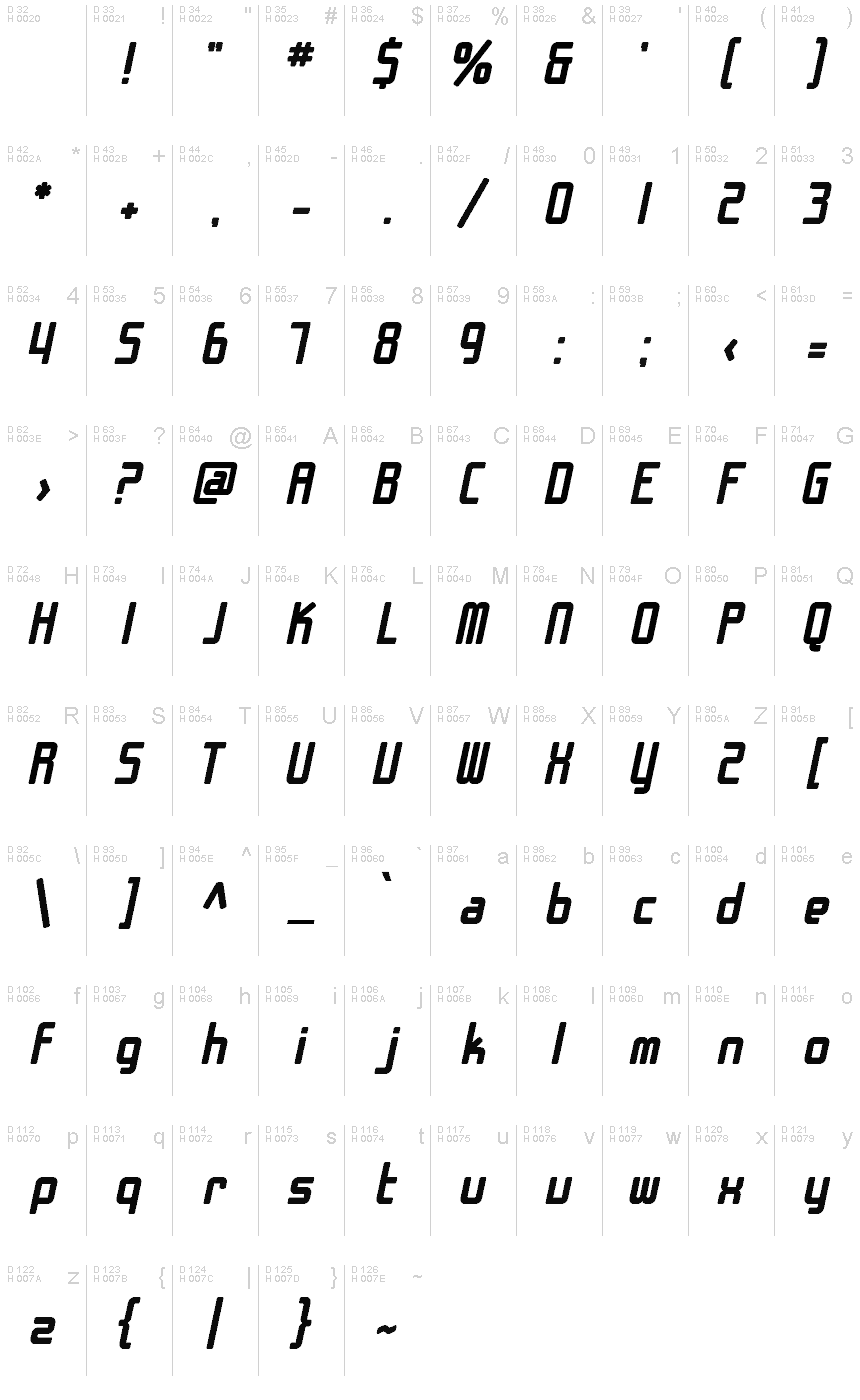
SF Chrome Fenders Bold Oblique
SF Chrome Fenders Bold Oblique is a standout typeface from the SF Chrome Fenders family, meticulously crafted by the ShyFonts Type Foundry. This display font exudes a techno style with its semi-bold weight and condensed width, offering an aesthetic that is both sleek and assertive. The oblique slant adds dynamism to the characters, infusing your projects with a sense of forward motion and modernity.
The font's techno vibe makes it perfect for creative endeavors that require a touch of futuristic flair or for brands looking to project an image of cutting-edge innovation. Its condensed form factor allows for impactful headlines without sacrificing space, making it ideal for bold statements in graphic design, advertising, and digital media.
Whether you're designing logos, game interfaces, or promotional materials, SF Chrome Fenders Bold Oblique delivers on versatility while maintaining its distinct character—a true asset for any designer seeking to leave a lasting impression.
The font's techno vibe makes it perfect for creative endeavors that require a touch of futuristic flair or for brands looking to project an image of cutting-edge innovation. Its condensed form factor allows for impactful headlines without sacrificing space, making it ideal for bold statements in graphic design, advertising, and digital media.
Whether you're designing logos, game interfaces, or promotional materials, SF Chrome Fenders Bold Oblique delivers on versatility while maintaining its distinct character—a true asset for any designer seeking to leave a lasting impression.